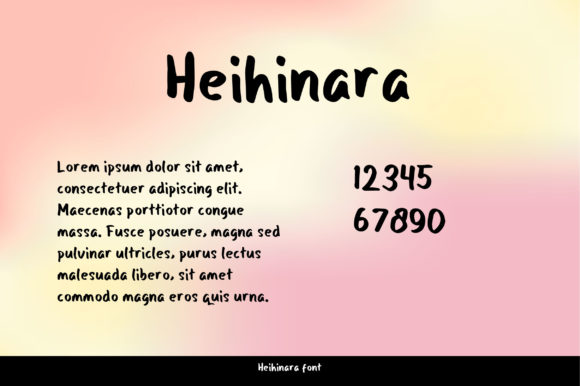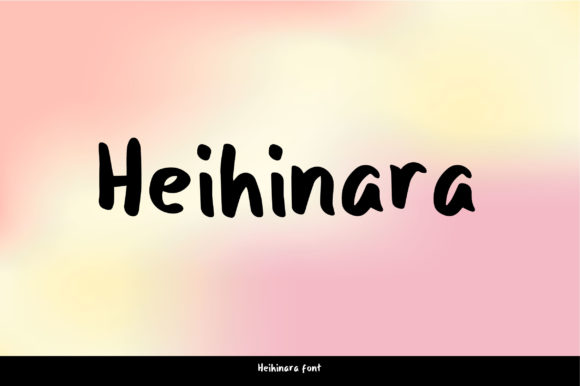
Heihinara Font
About Heihinara Font
Heihinara is a relaxed and friendly handwritten font. No matter the topic, this font will be an incredible asset to your fonts’ library, as it has the potential to elevate any creation!